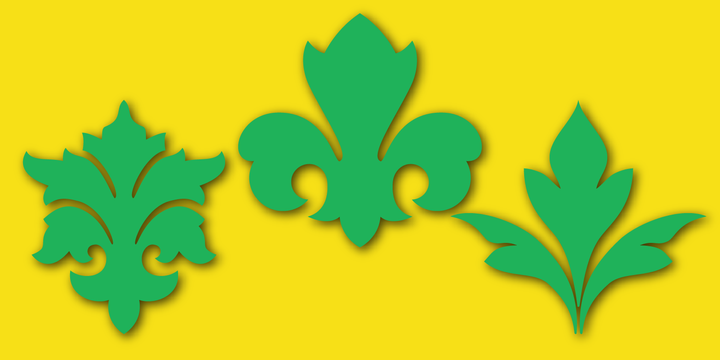
Foliage Ornaments
Designed by: Gerald Gallo
Designed when: 2006
Foliage Ornaments
Foliage Ornaments was inspired by the foliage designs used in historic art and architecture.
There is an assortment of 47 ornaments located under the character set keys.